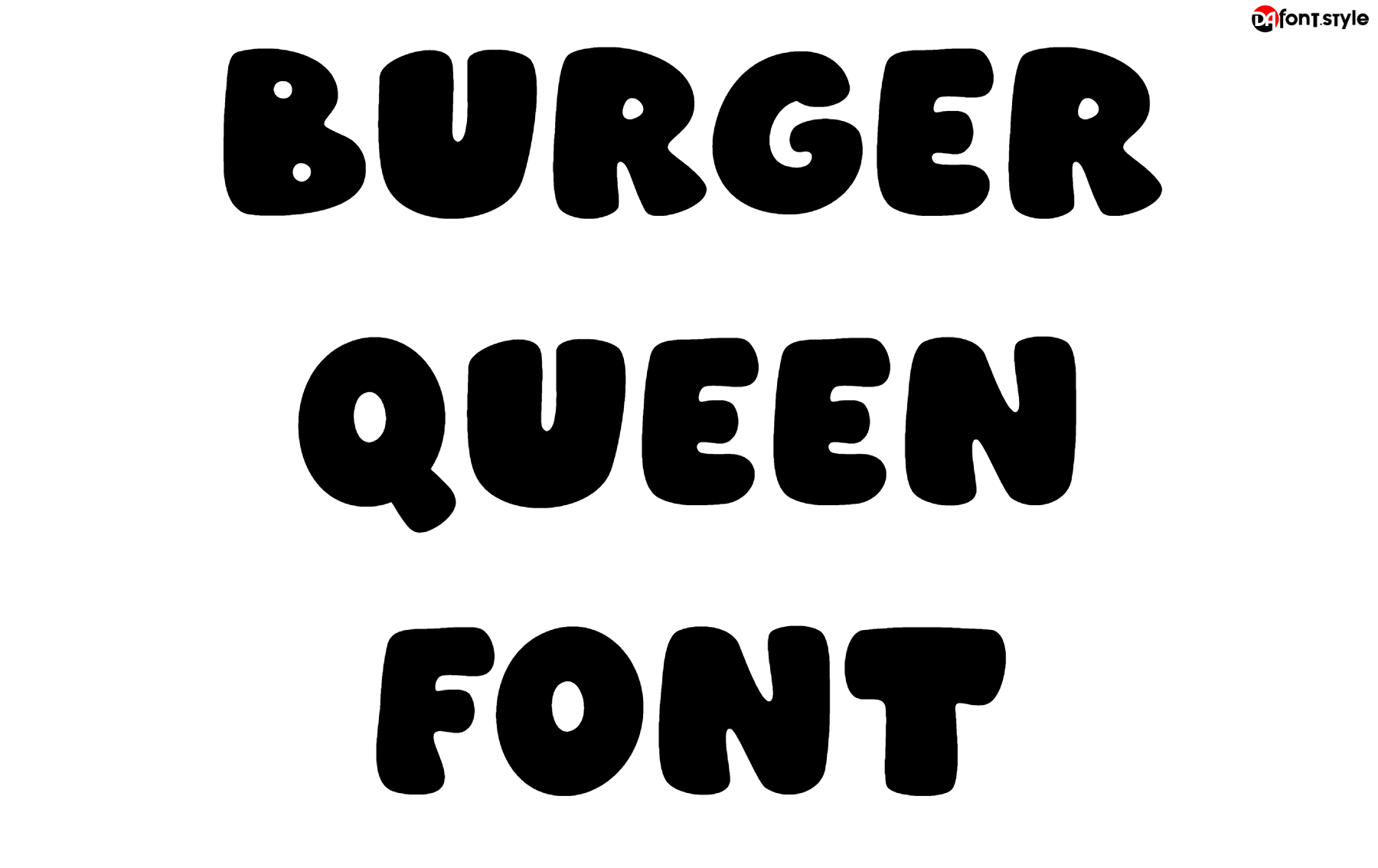
Burger Queen font
Burger Queen is a cartoon font created by MJType (Muhamad Junaid). Its bouncy, rounded letters feel playful, like lettering from a cartoon or a comic book. It's a free download, and you can try it with your own text in the preview above first.
- Designer: MJType (Muhamad Junaid)
Burger Queen covers the full alphabet in upper and lowercase, plus all ten numbers, so you can set names, dates and prices without switching fonts. Common punctuation such as &, !, ? and @ is included as well. It also has the accented letters you need for Spanish, French, Portuguese and Italian.
Designers usually reach for fonts like Burger Queen when they're making kids' books, birthday invites and fun YouTube thumbnails. Cartoon fonts are great for short, fun lines. If you place it over a busy photo, add a thick outline or a drop shadow so it stays readable.
Yes. Burger Queen includes the accented letters needed for Spanish, French, Portuguese and Italian, so it works for more than just English.